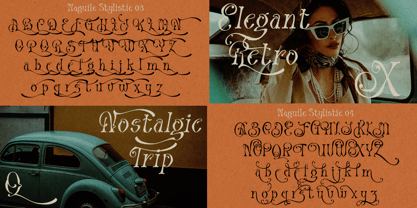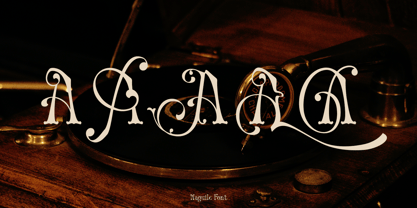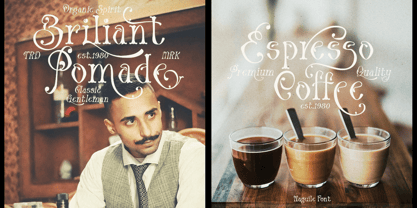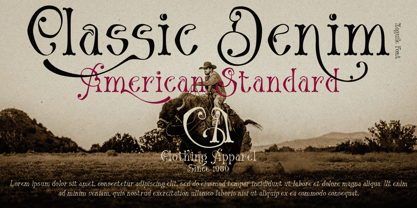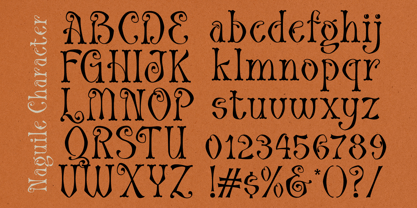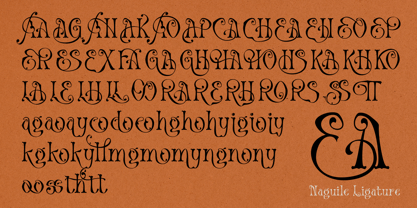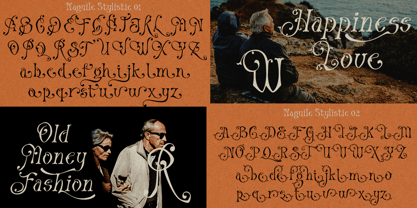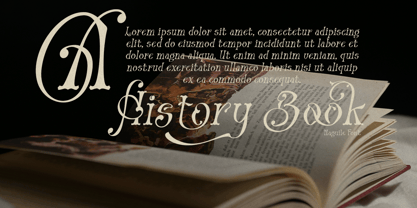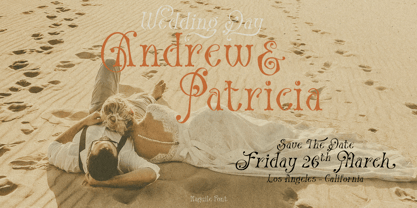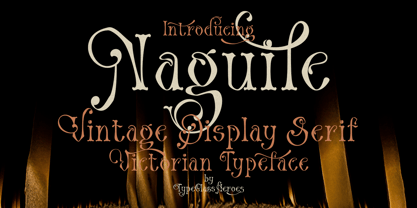
Naguile
by TypeClassHeroes
The Naguile Font Family was designed by Suandana ipandemade and published by TypeClassHeroes. Naguile contains 2 styles and family package options.
We proudly present Naguile is a vintage display font with an elegant touch with a classic feel inspired typography from the 19th century, old fancy lettering, vintage illustration, and victorian calligraphy.
This font is very perfect for many display purposes in your product design if you want to a vintage and classic style, elegant and luxury. Such as book covers, product labels, logos badges, drink bottles, tattoo shop, coffee shops, fashion products, wedding invitation, etc.